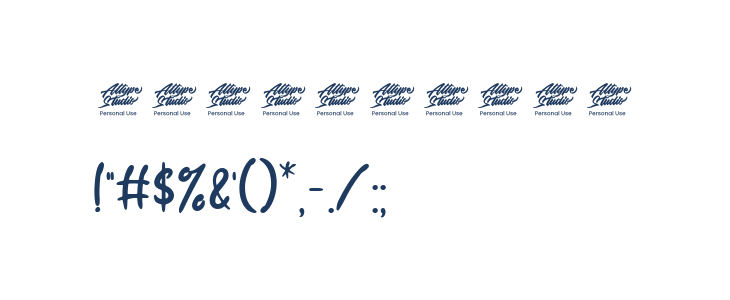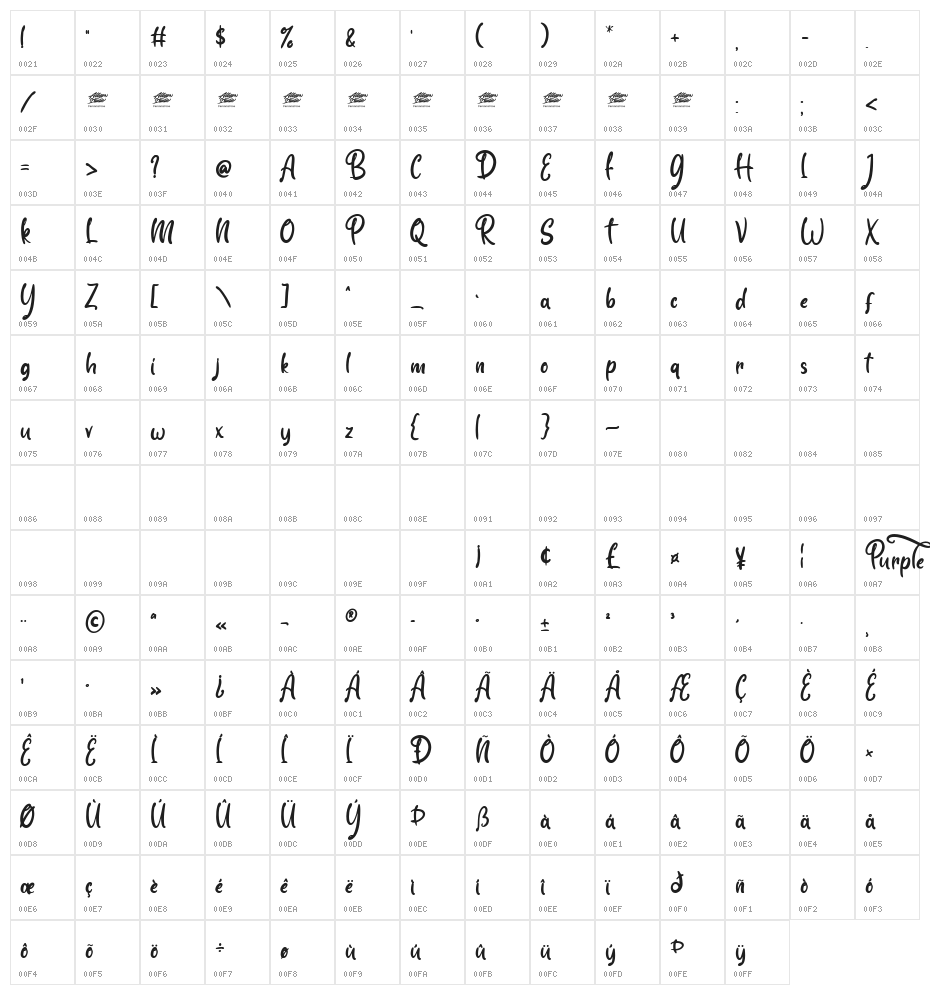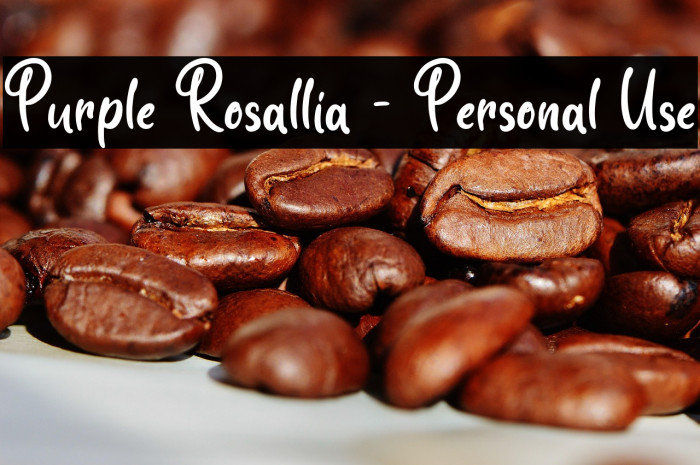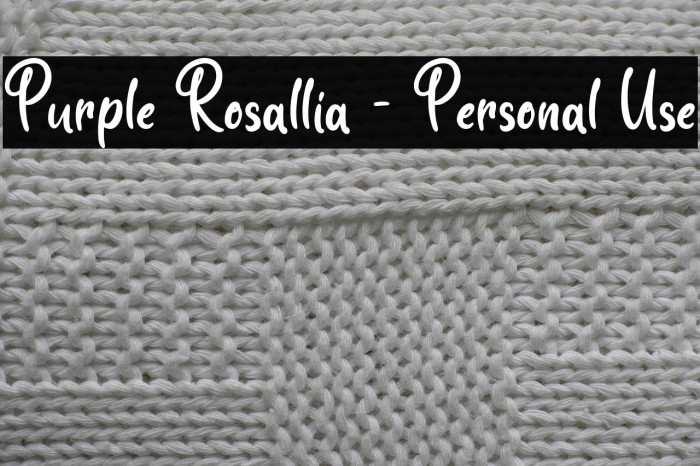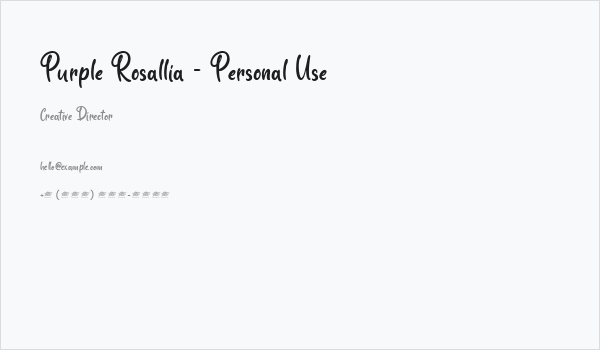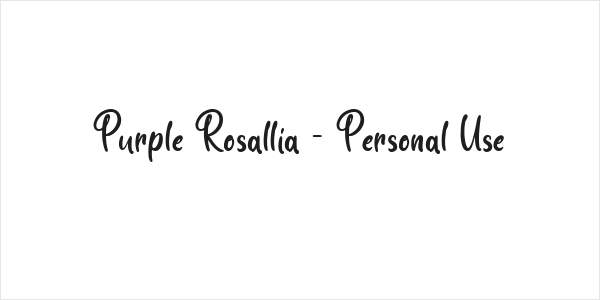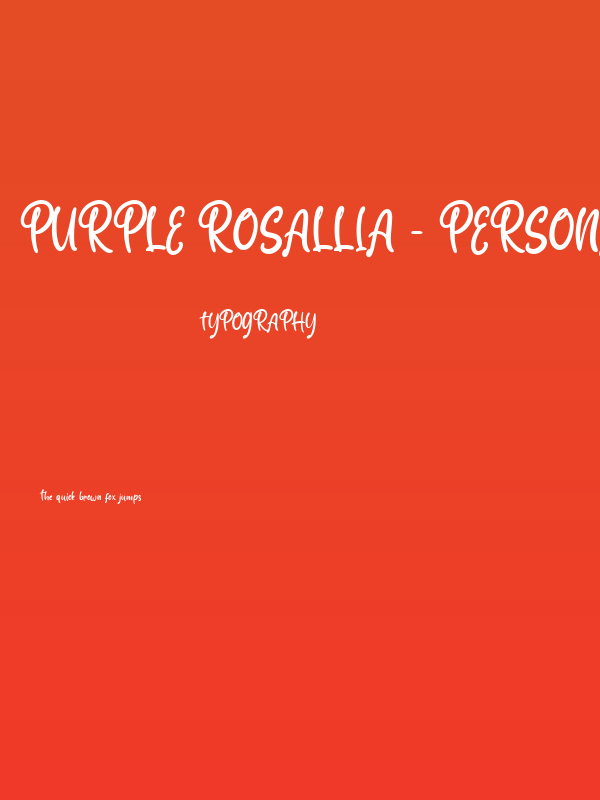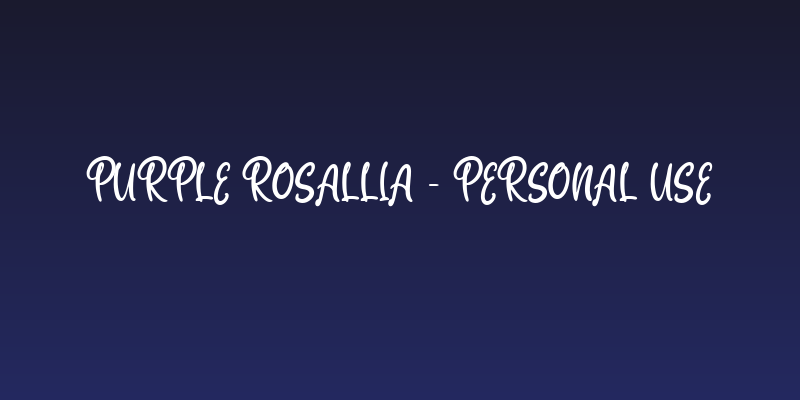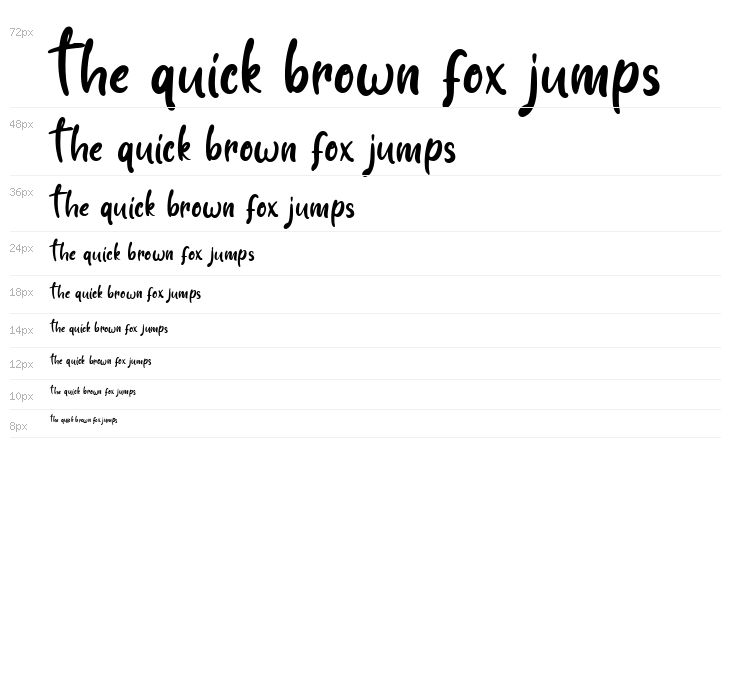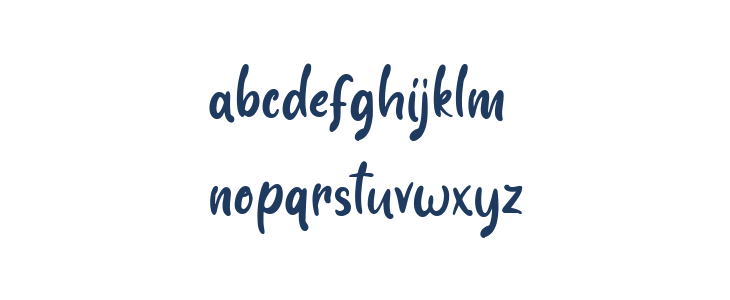
Purple Rosallia - Personal Use Font
Purple Rosallia - Personal Use Description
This font features a playful and casual handwritten style, characterized by its smooth, flowing curves and slightly irregular strokes. The uppercase letters are bold and prominent, while the lowercase letters maintain a consistent flow, enhancing readability. The font includes a full set of numerals and a variety of special characters, making it versatile for different uses. Its informal and friendly appearance makes it suitable for creative projects that require a personal touch. The overall design is balanced, with moderate character spacing and medium contrast in stroke thickness, providing a harmonious look.